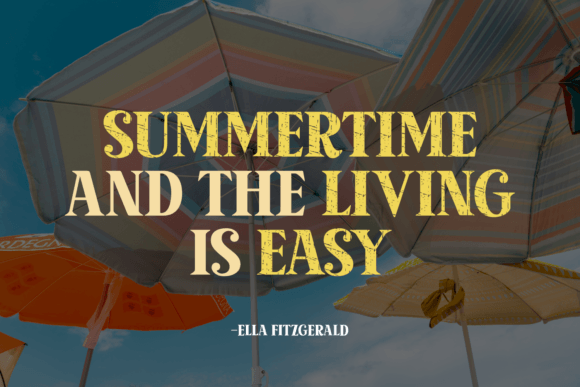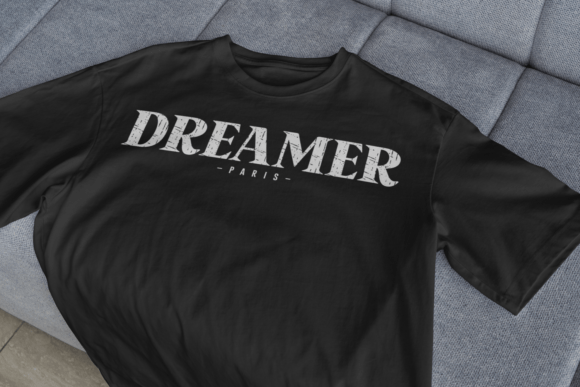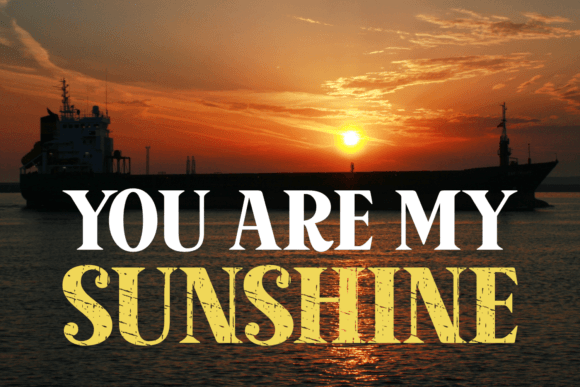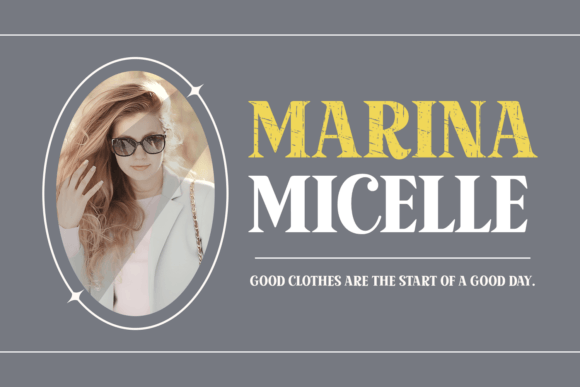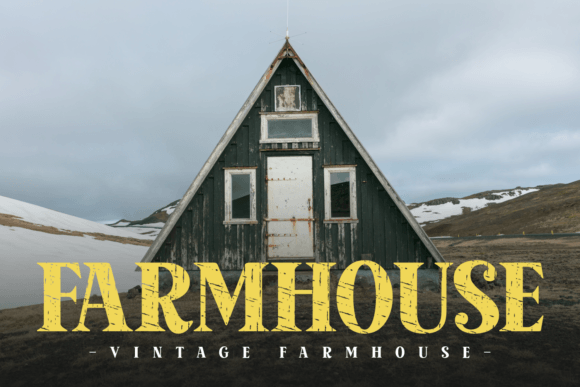
Introduction to Moment Vintage Font
Bring a touch of retro charm to your designs with Moment Vintage, a bold serif font featuring a distressed texture for an authentic vintage feel.
This typeface comes in two unique styles, perfect for posters, logos, apparel, branding, and more Ideal for evoking nostalgia and capturing timeless elegance with a bold edge.